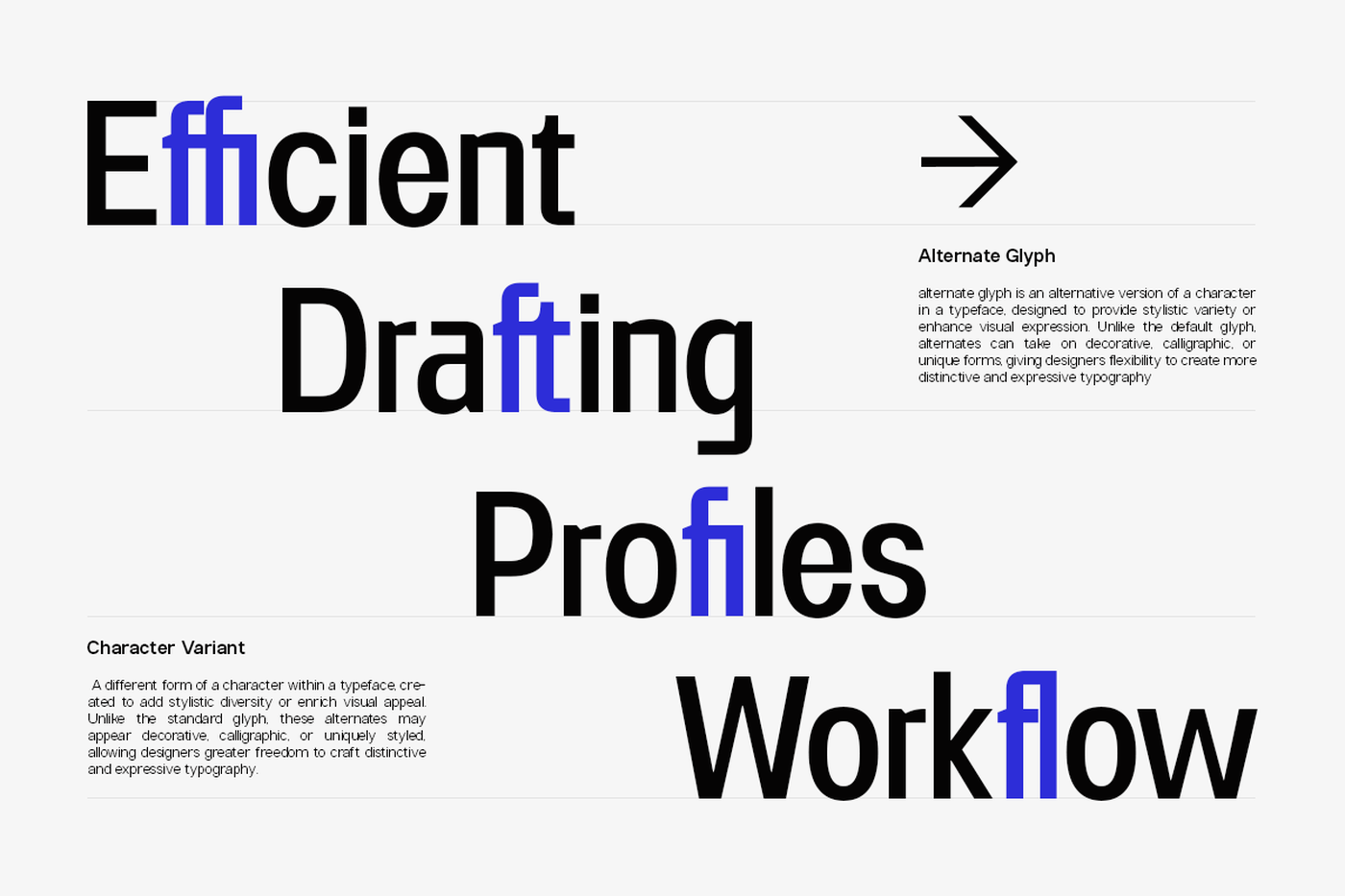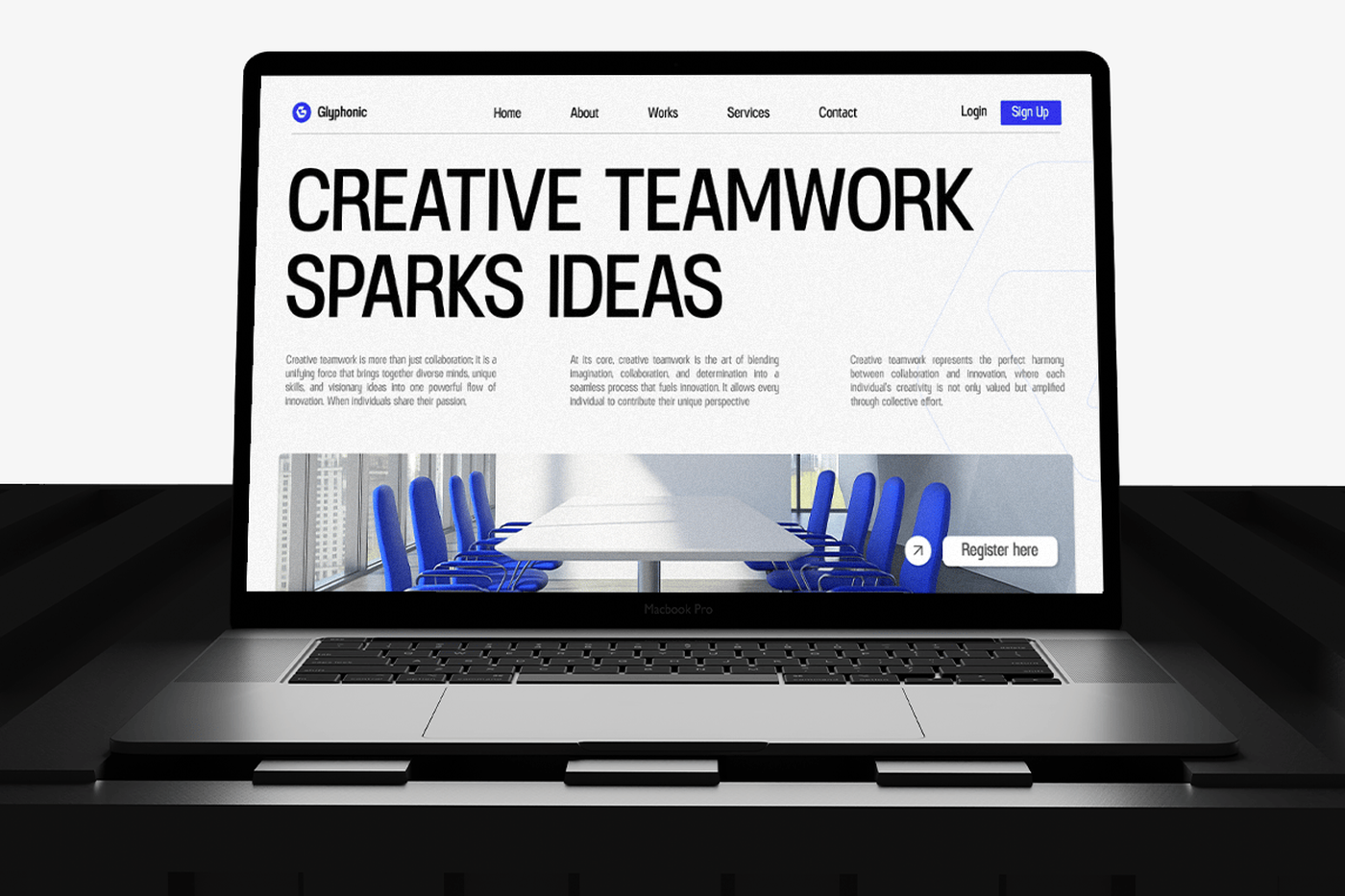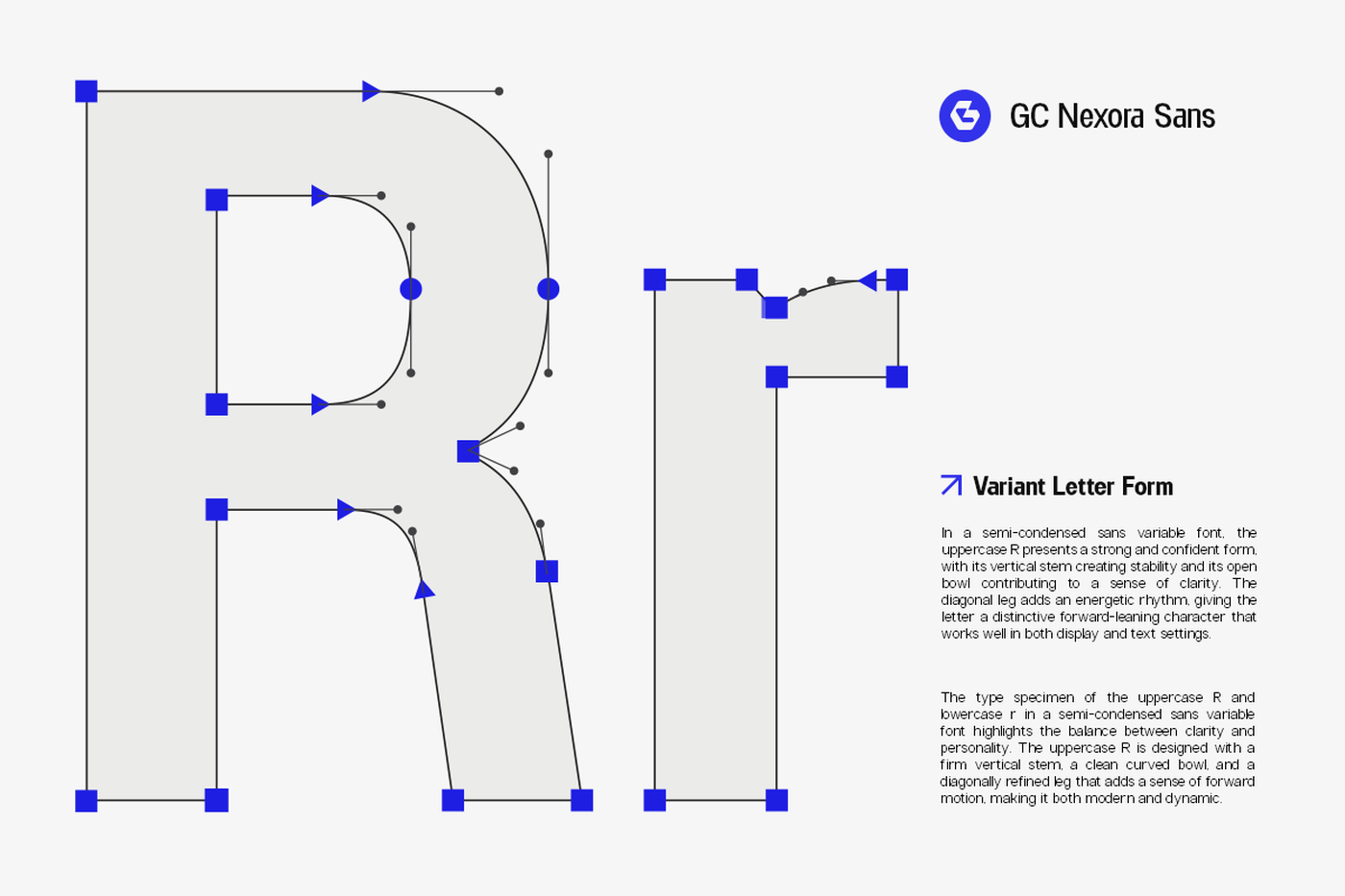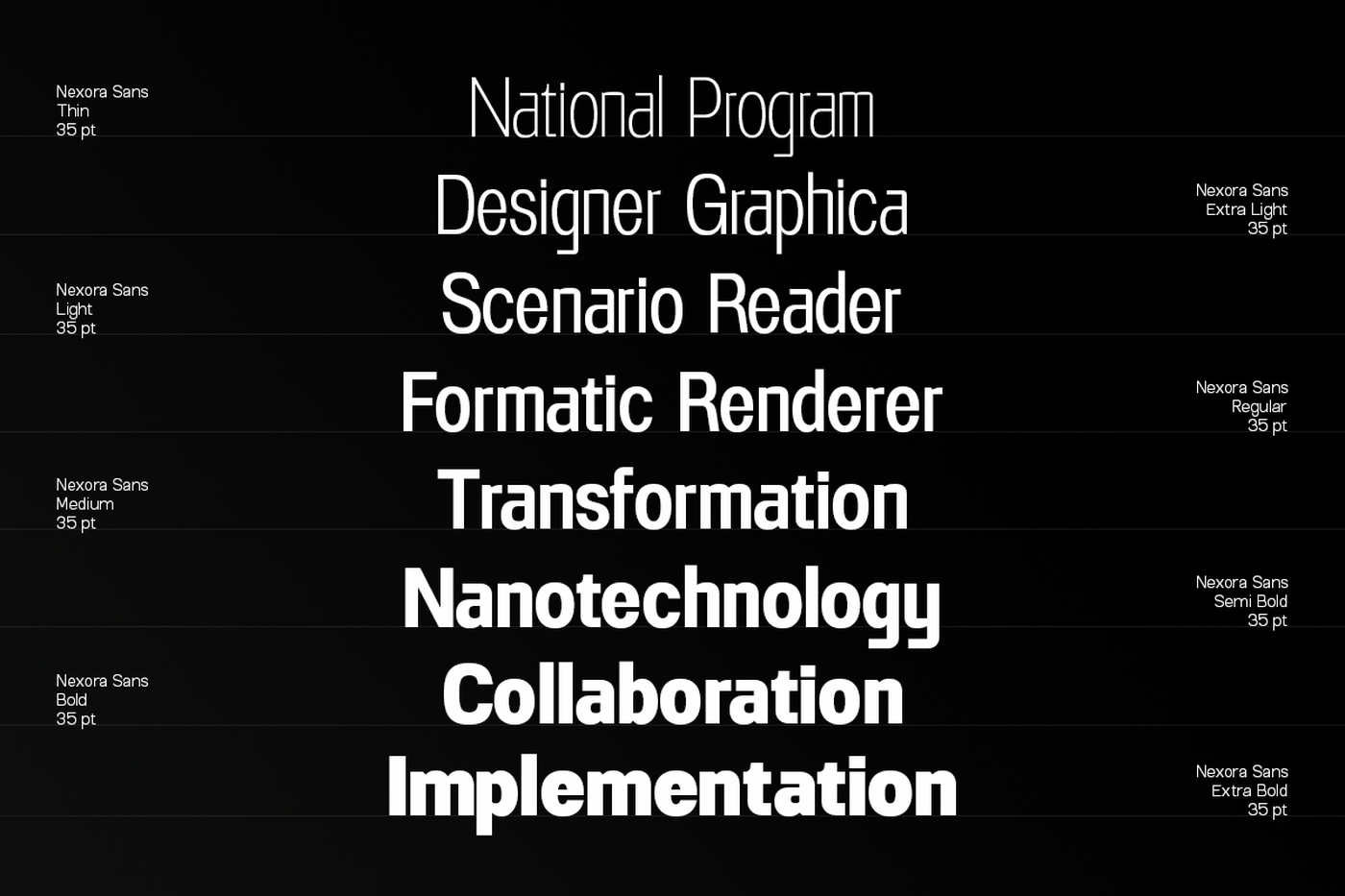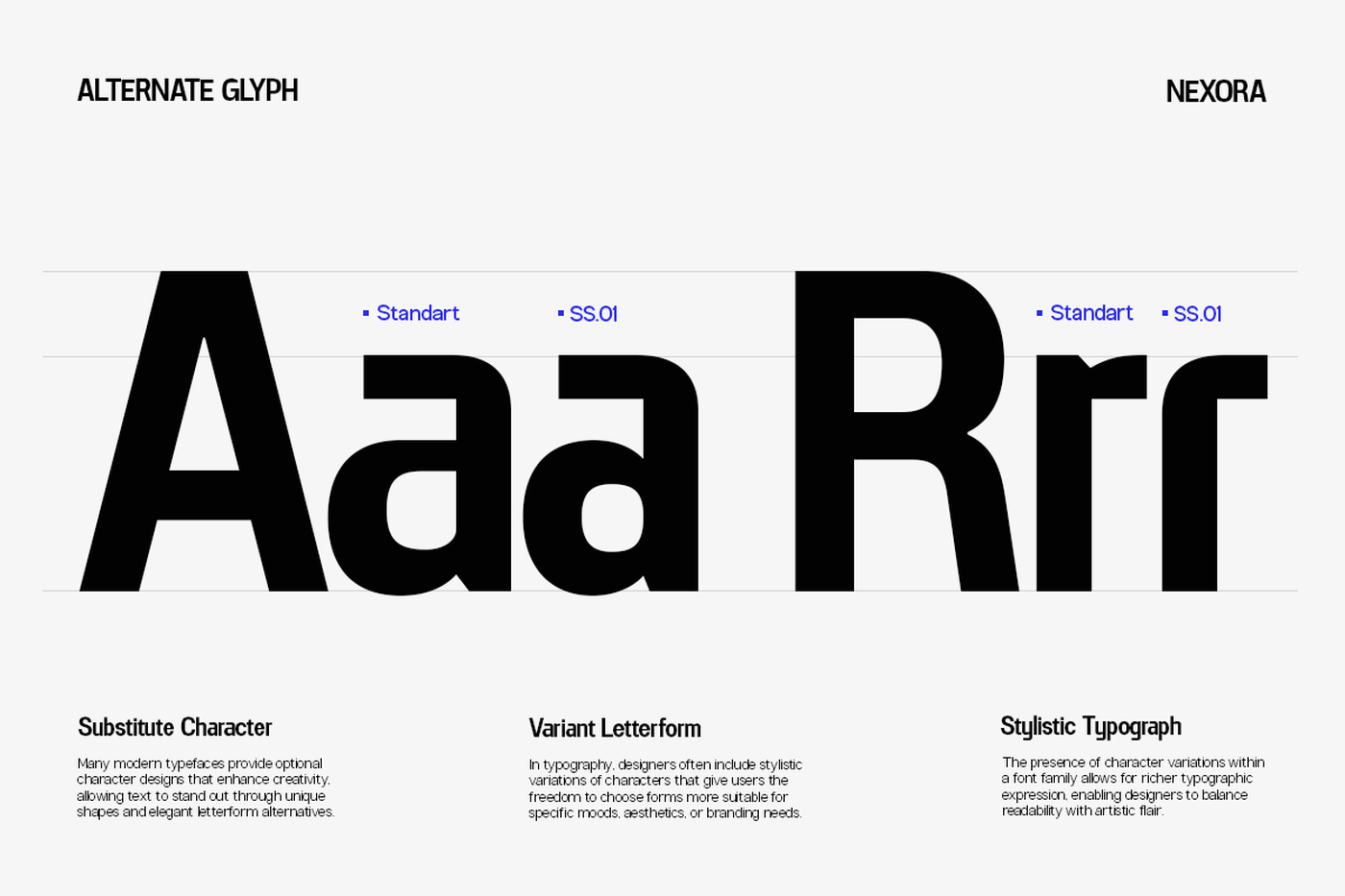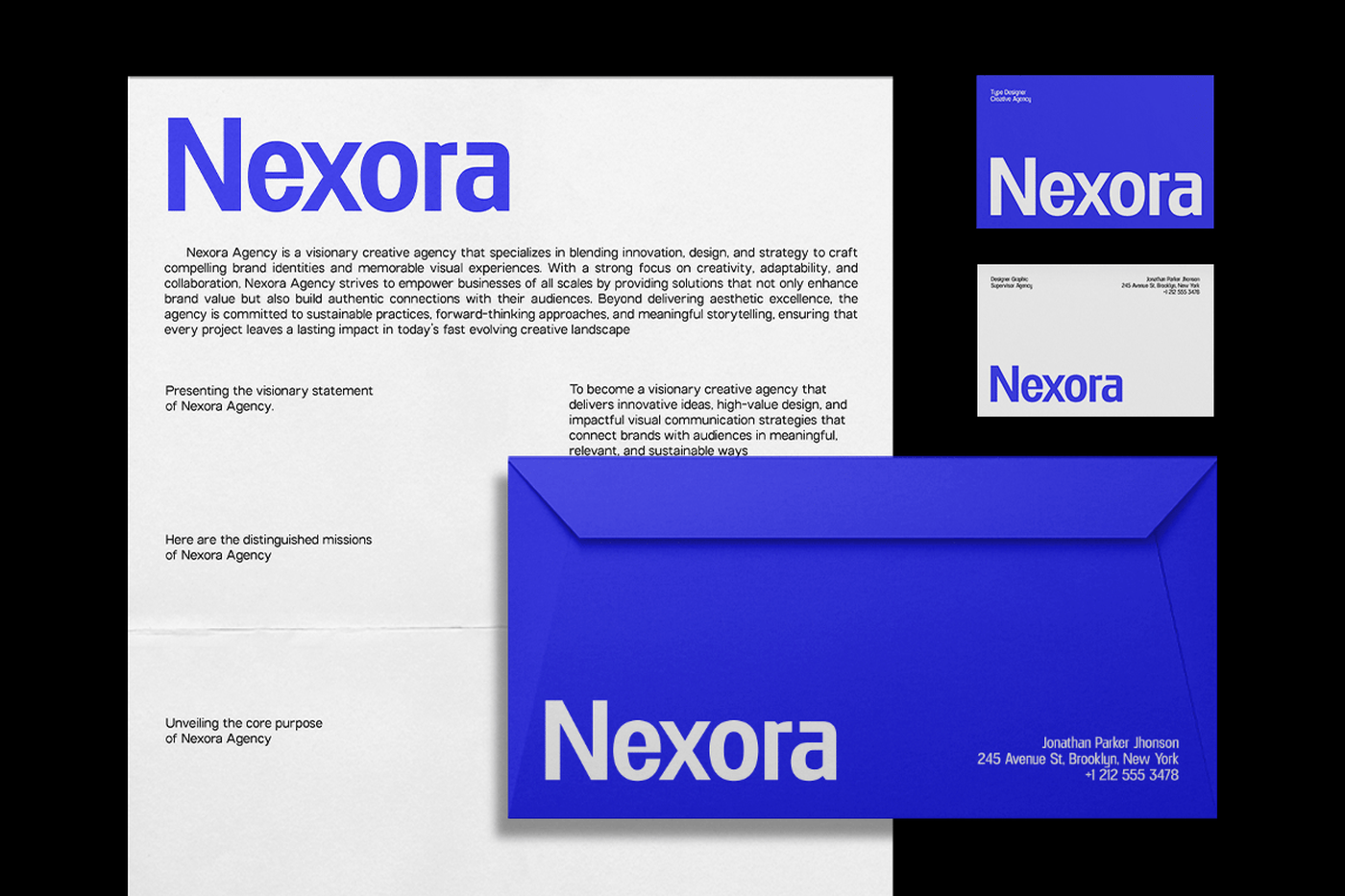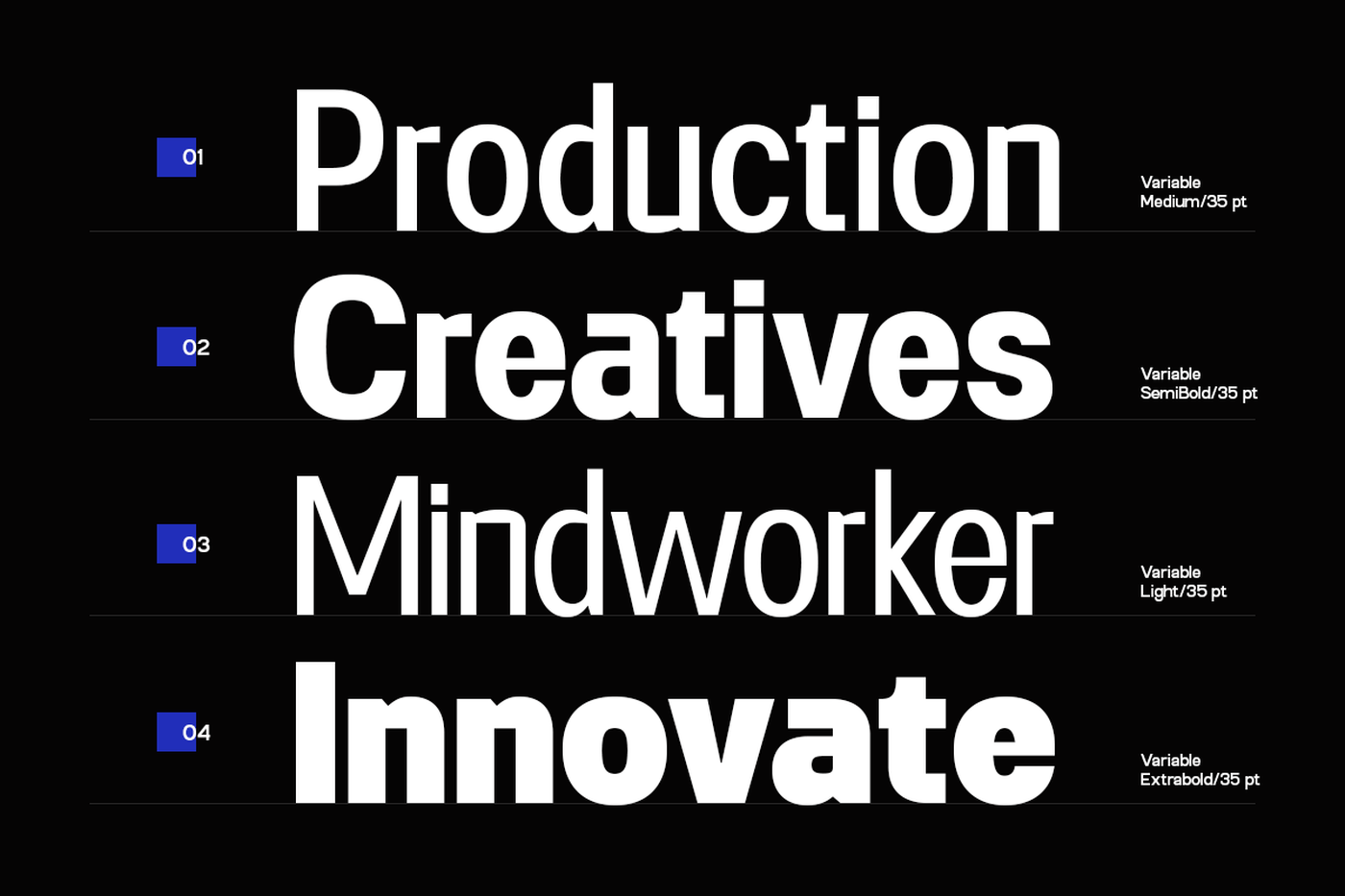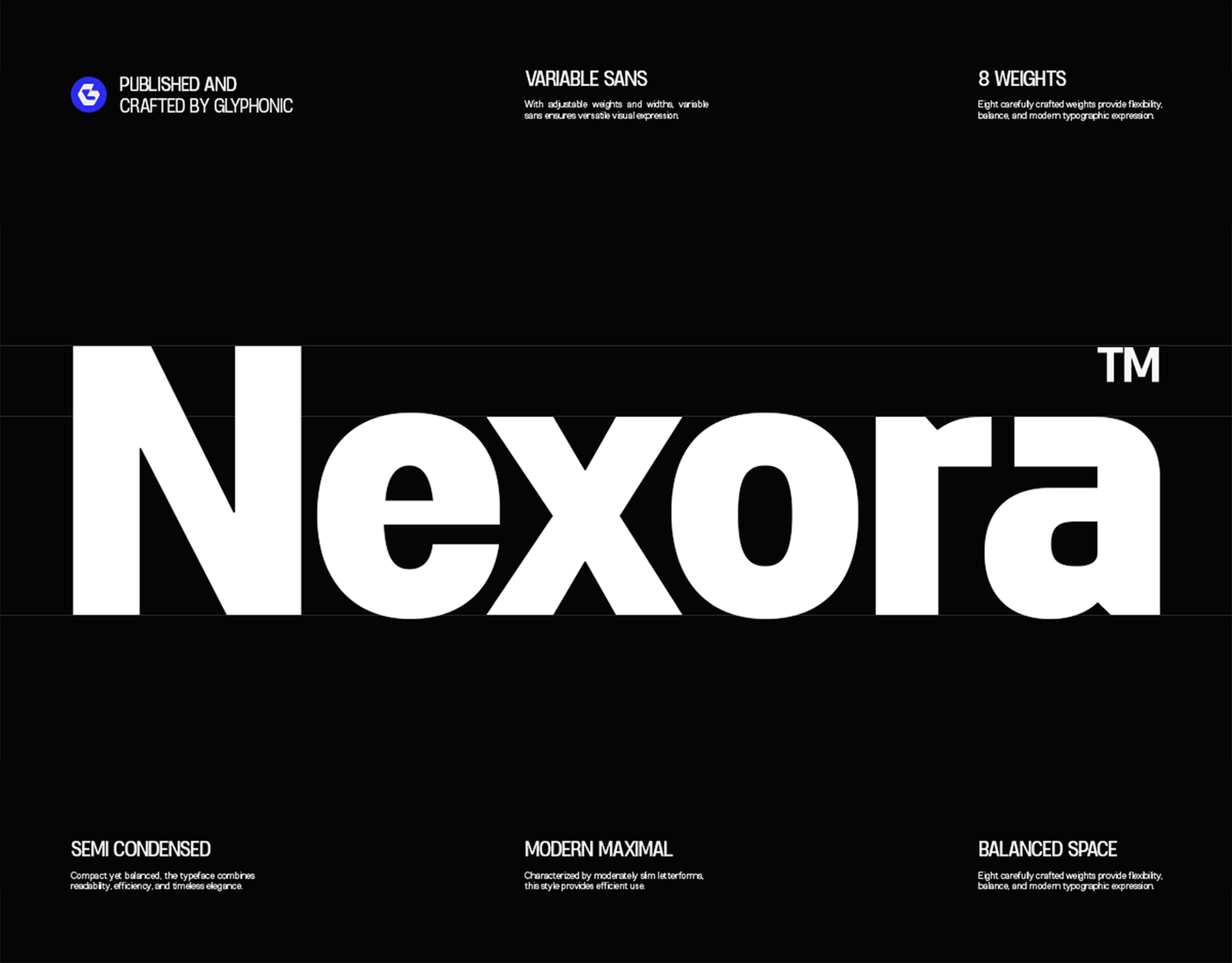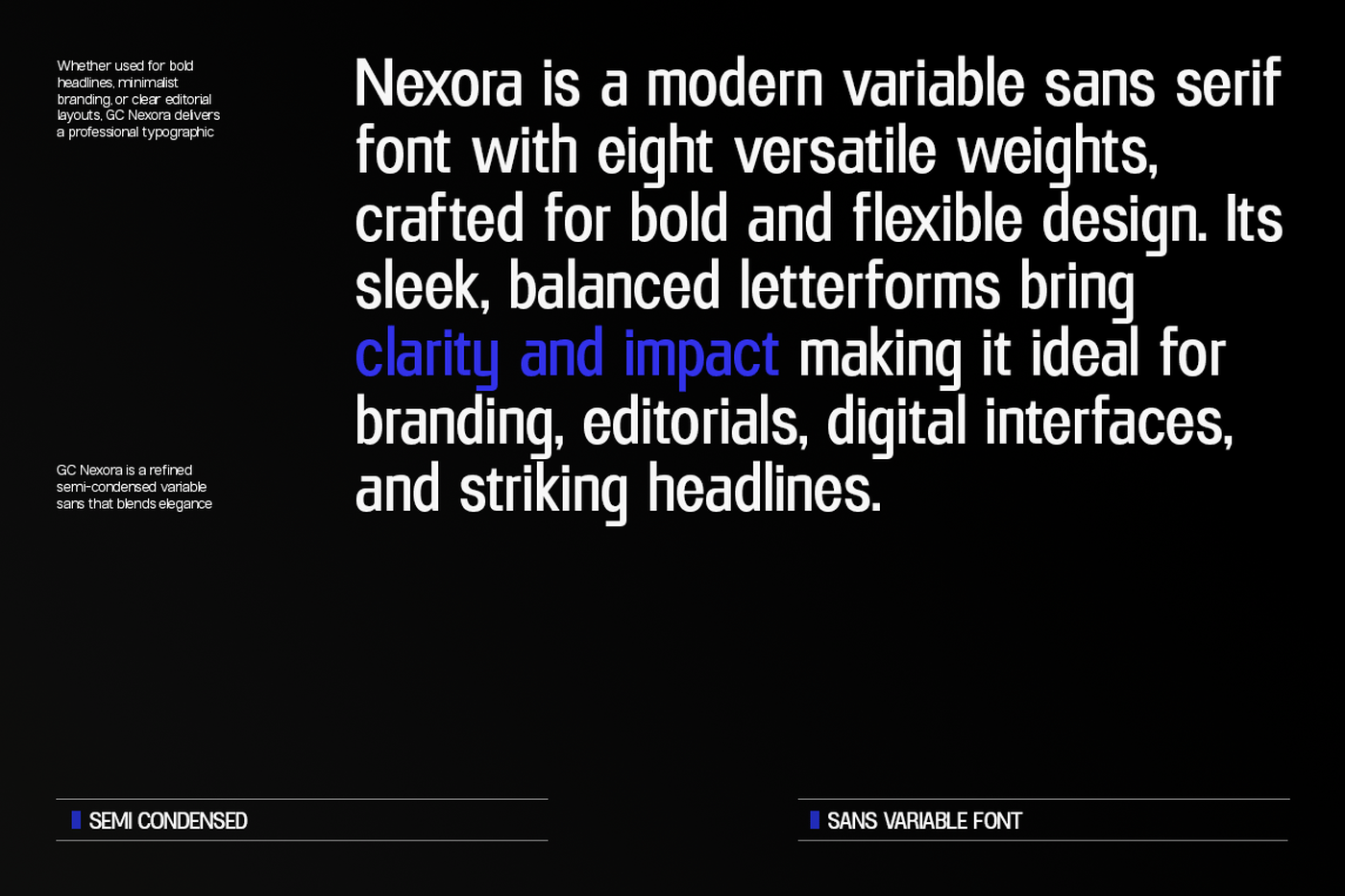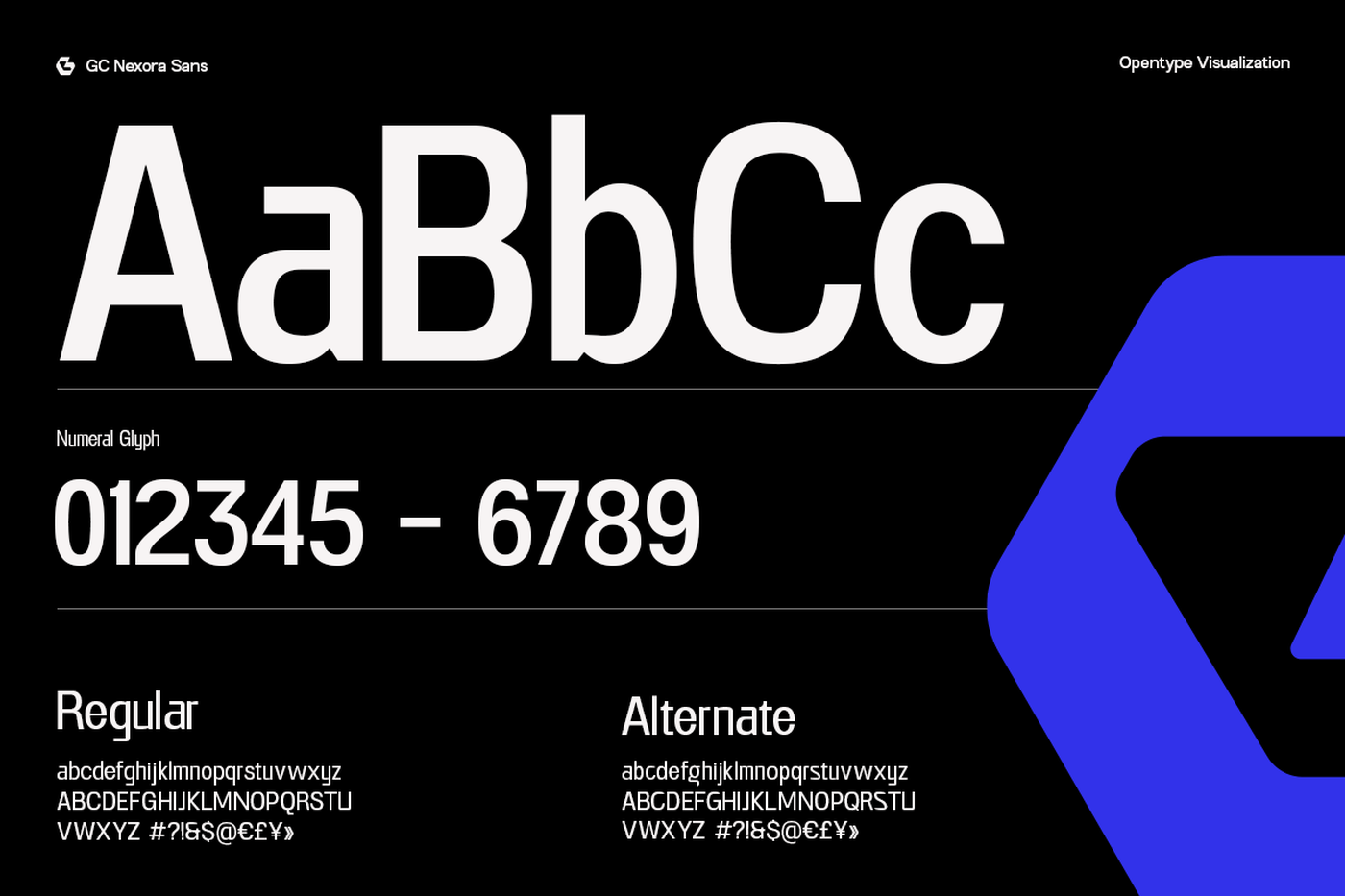
Nexora - Modern Variable Sans Font
Nexora is a contemporary sans-serif typeface designed for precision, versatility, and bold visual impact. With variable weights and widths, it offers complete flexibility across digital and print platforms—perfect for brands, headlines, interfaces, and editorial designs that demand clarity and modern sophistication. Its semi-condensed form balances efficiency with strong readability, while the geometric construction adds a clean and confident tone. Crafted for designers who value both adaptability and character, GC Nexora brings a sense of power, control, and forward-thinking style to every layout.